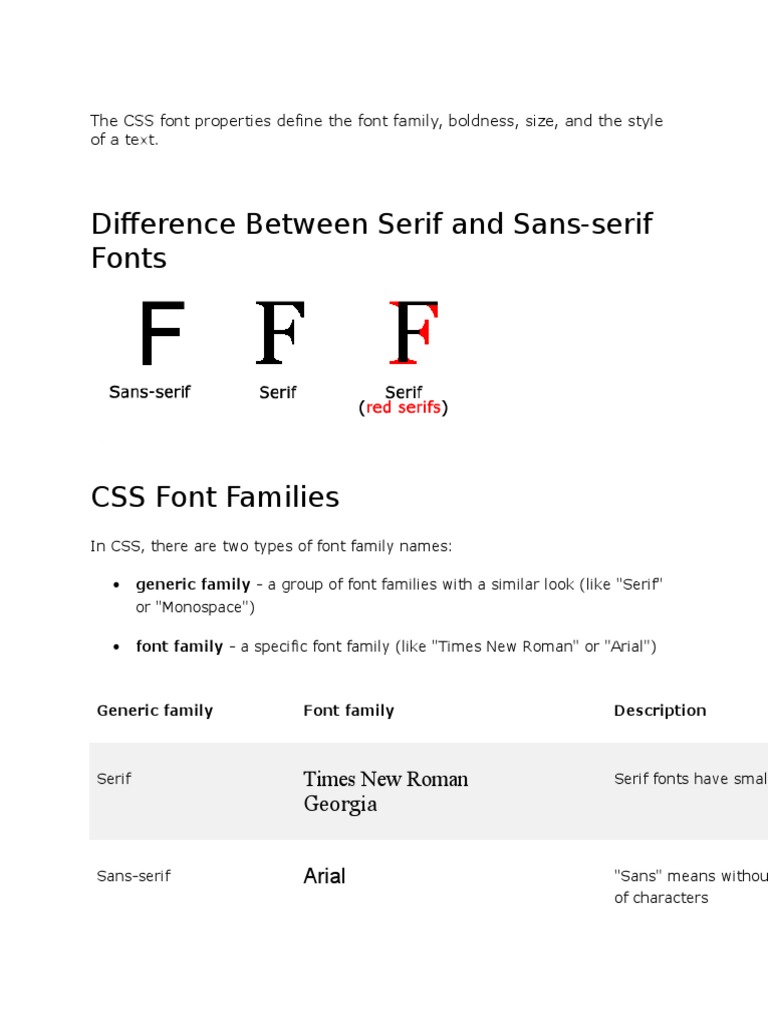
The CSS font properties define the font family, boldness, size, and the style
of a text.
Difference Between Serif and Sans-serif
Fonts
CSS Font Families
In CSS, there are two types of font family names:
generic family - a group of font families with a similar look (like "Serif"
or "Monospace")
font family - a specific font family (like "Times New Roman" or "Arial")
Generic family
Font family
Description
Serif
Times New Roman
Georgia
Serif fonts have small
Sans-serif
Arial
"Sans" means withou
of characters
Verdana
Monospace
Courier New
Lucida Console
All monospace charac
Note: On computer screens, sans-serif fonts are considered easier to read than serif fo
Font Family
The font family of a text is set with the font-family property.
The font-family property should hold several font names as a "fallback"
system. If the browser does not support the first font, it tries the next font, and
so on.
Start with the font you want, and end with a generic family, to let the browser
pick a similar font in the generic family, if no other fonts are available.
Note: If the name of a font family is more than one word, it must be in
quotation marks, like: "Times New Roman".
More than one font family is specified in a comma-separated list:
Font Style
The font-style property is mostly used to specify italic text.
This property has three values:
normal - The text is shown normally
italic - The text is shown in italics
oblique - The text is "leaning" (oblique is very similar to italic, but less
supported)
Font Size
The font-size property sets the size of the text.
Being able to manage the text size is important in web design. However, you
should not use font size adjustments to make paragraphs look like headings, or
headings look like paragraphs.
Always use the proper HTML tags, like <h1> - <h6> for headings and <p> for
paragraphs.
The font-size value can be an absolute, or relative size.
Absolute size:
Sets the text to a specified size
Does not allow a user to change the text size in all browsers (bad for
accessibility reasons)
Absolute size is useful when the physical size of the output is known
Relative size:
Sets the size relative to surrounding elements
Allows a user to change the text size in browsers